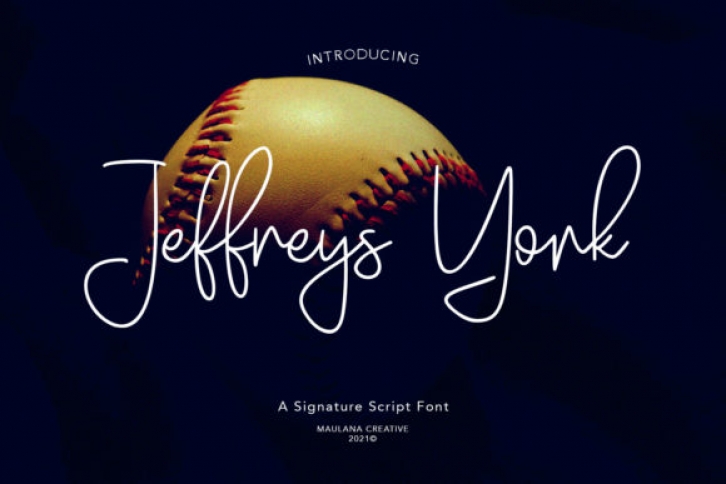
Jeffreys York is a light, thin lettered, script font. It has a casual, yet elegant touch. It can be used for various purposes such as logos, wedding invitations, headings, t-shirts, letterhead, signage, labels, news, posters, badges and so much more.